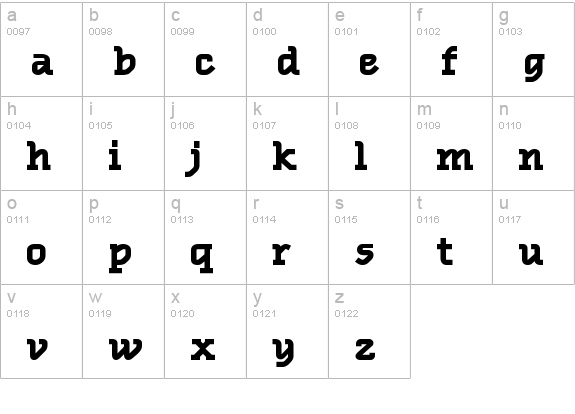
Oblique TextBold Font Details
Oblique TextBold is a distinctive, italic variant in the Oblique typeface family \xE2\x80\x94 well suited to design and typography projects.
Introducing Oblique TextBold font, a stylish and modern typeface that exudes sophistication and elegance. With its unique oblique design, this font is perfect for adding a touch of flair to any project. The bold weight of the characters makes a strong statement, while the subtle slant adds a dynamic and eye-catching element. What sets Oblique TextBold font apart is not just its striking appearance, but also its versatility. Whether used for headlines, logos, posters, or branding materials, this font will make your text stand out and leave a lasting impression. Best of all, Oblique TextBold font is available for free download at FontsMarket.com. Don't miss out on this opportunity to enhance your design projects with a font that is both stylish and accessible. Download Oblique TextBold font today and elevate your typography game to the next level!